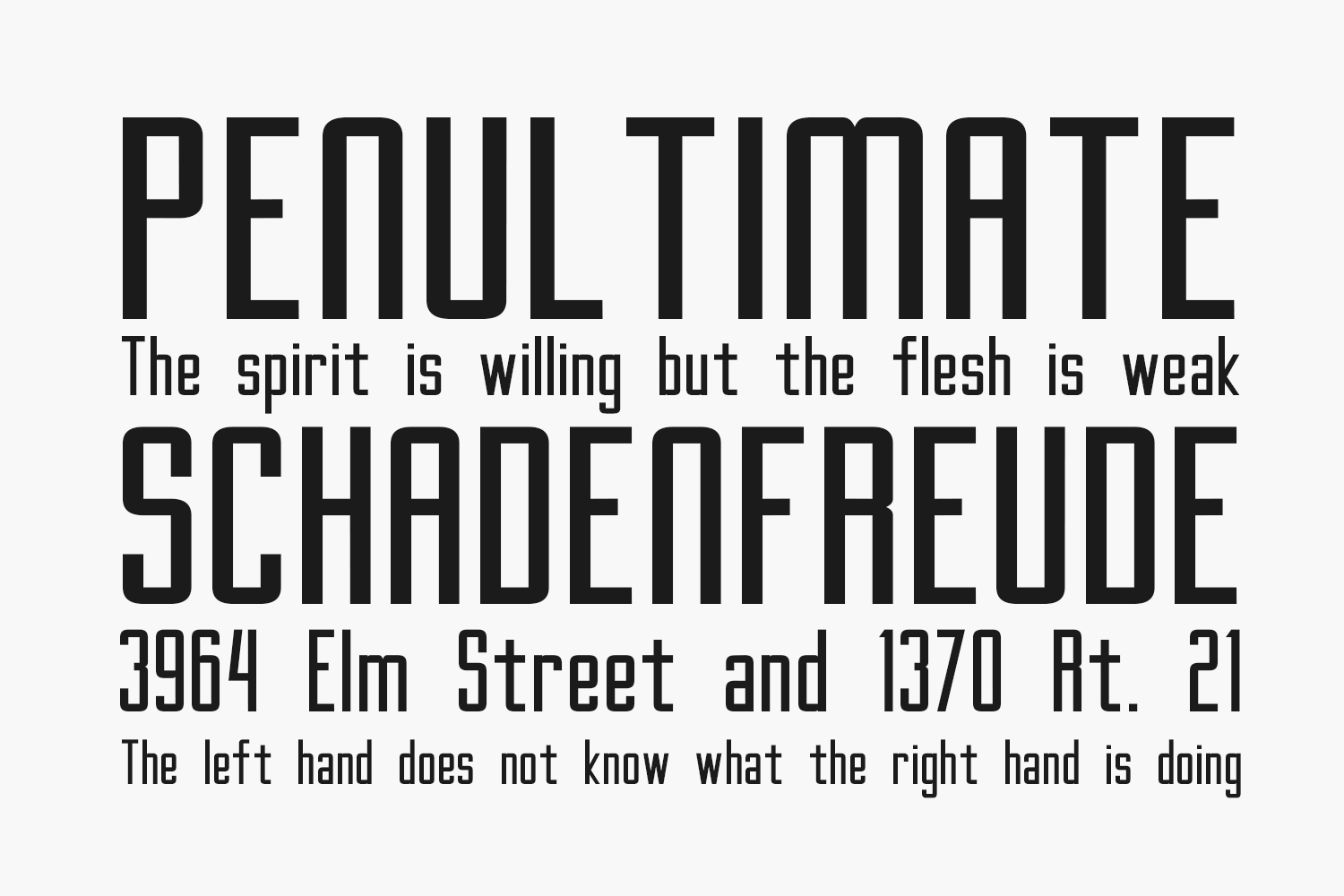
Gotham Nights Free Font Family is a tall, thin typeface heavily inspired by the lettering used in the classic Batman: The Animated Series for episode titles and other sundry. The font includes a complete alphabet with accent characters, Euro. Comes in regular, bold, italic, and bold-italic versions. Gotham Nights Free Font Family was designed by Pixel Sagas and is free for personal use only. Please purchase the full version for commercial use.
Gotham Nights Reguar The quick brown fox jumps over the lazy dog
Gotham Nights Italic The quick brown fox jumps over the lazy dog
Gotham Nights Bold The quick brown fox jumps over the lazy dog
Gotham Nights Bold Italic The quick brown fox jumps over the lazy dog